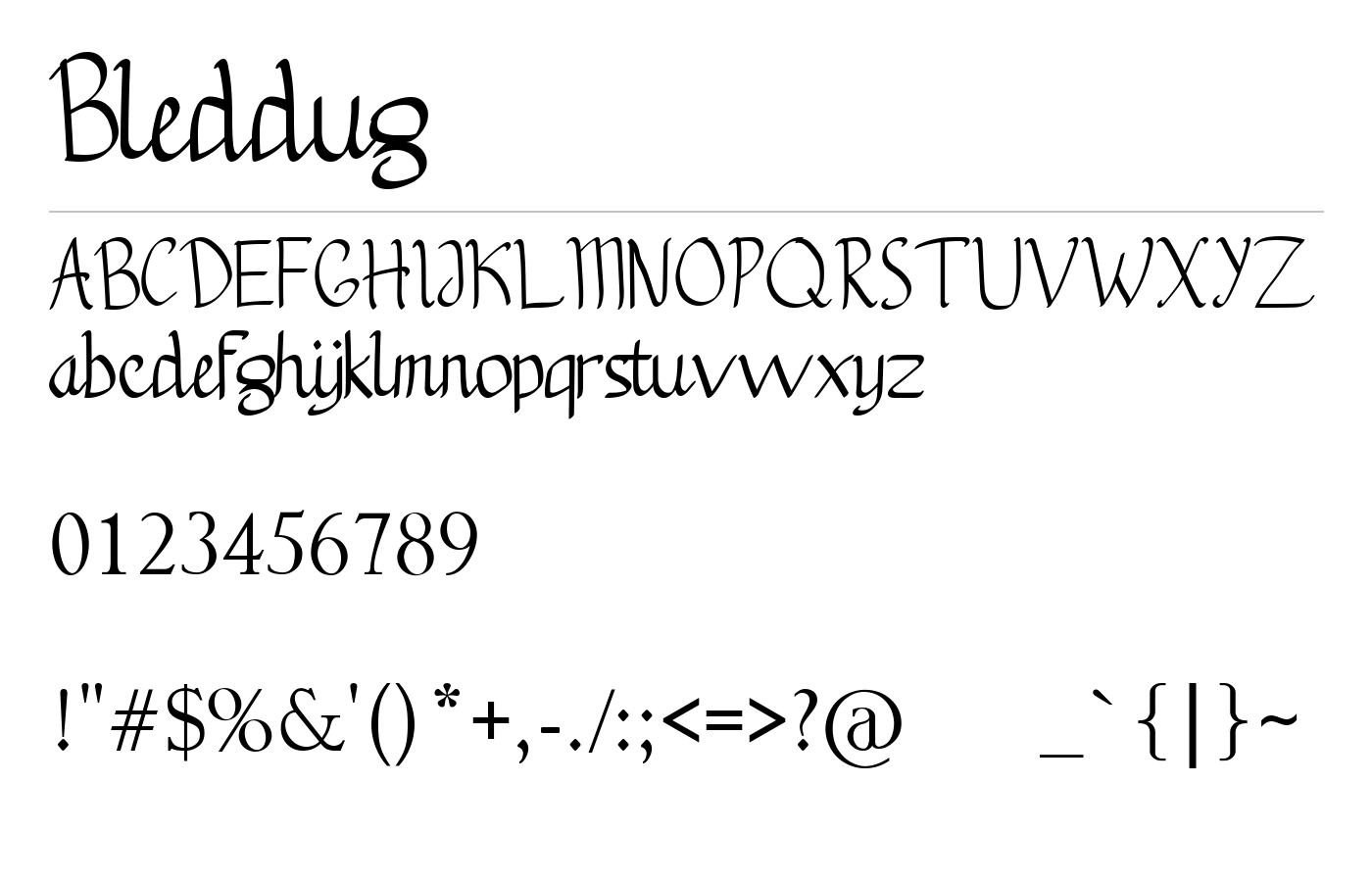
Bleddug is a playful and elegant handwritten-style font with a tall, narrow structure and moderate stroke contrast, giving it a whimsical yet refined feel. Its unique letterforms feature soft, slightly irregular curves and distinctive details, making it perfect for creative projects, casual branding, and editorial designs that want to convey personality and charm without sacrificing readability. This font works great for headlines, invitations, and artistic packaging where a touch of individuality and warmth is desired.
Bleddug Font
About Bleddug Font